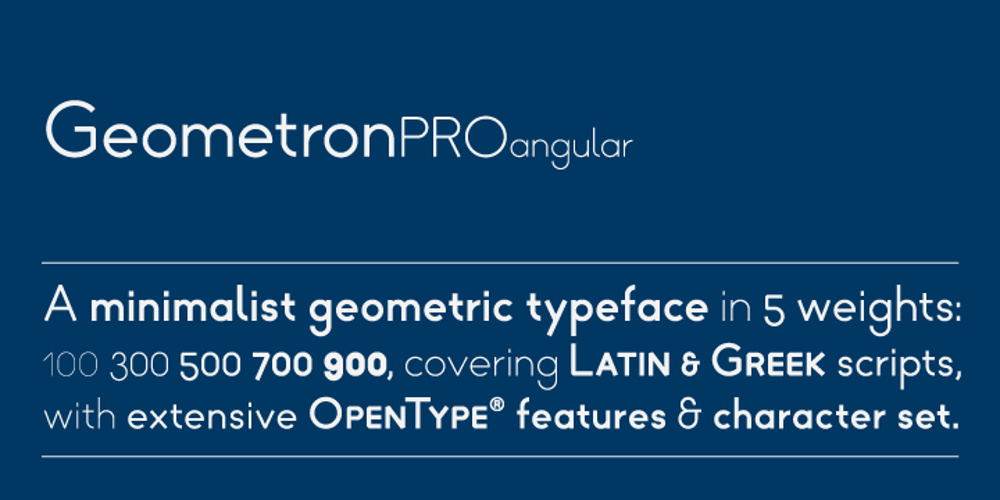
Geometron Pro Angular
Geometron Pro Angular font
Geometron Pro Angular Font Family was designed by Marius Mitran and published by Marius Mitran. Geometron Pro Angular contains 5 styles and family package options. Geometron has its origin in a custom typeface that I was commissioned to design for an architectural project. The concept was a “back to basics”, minimalist typeface constructed mainly with straight lines and circles or circular arcs, but without departing from the classical style of Roman & Greek lettering. Notable requirements were: an extensive character set needed for multi-language documentation, as well as a full collection of symbols and alternate glyph forms (e.g. superiors & inferiors) for scientific use. Special care was taken to obviate the almost identical similarities that were prone to appear between letters like uppercase “i” and lowercase “L” or between Latin and Greek letters such as “a” and “alpha”. This was also a prerequisite for scientific notation where ambiguity is not acceptable. All in all, the font would have to blend a modern design with a wealth of functional features. Consequently, all of these were made possible by choosing the OpenType format for development, resulting in a comprehensive and feature-rich font family specifically targeted for use in high-end design/typesetting applications.